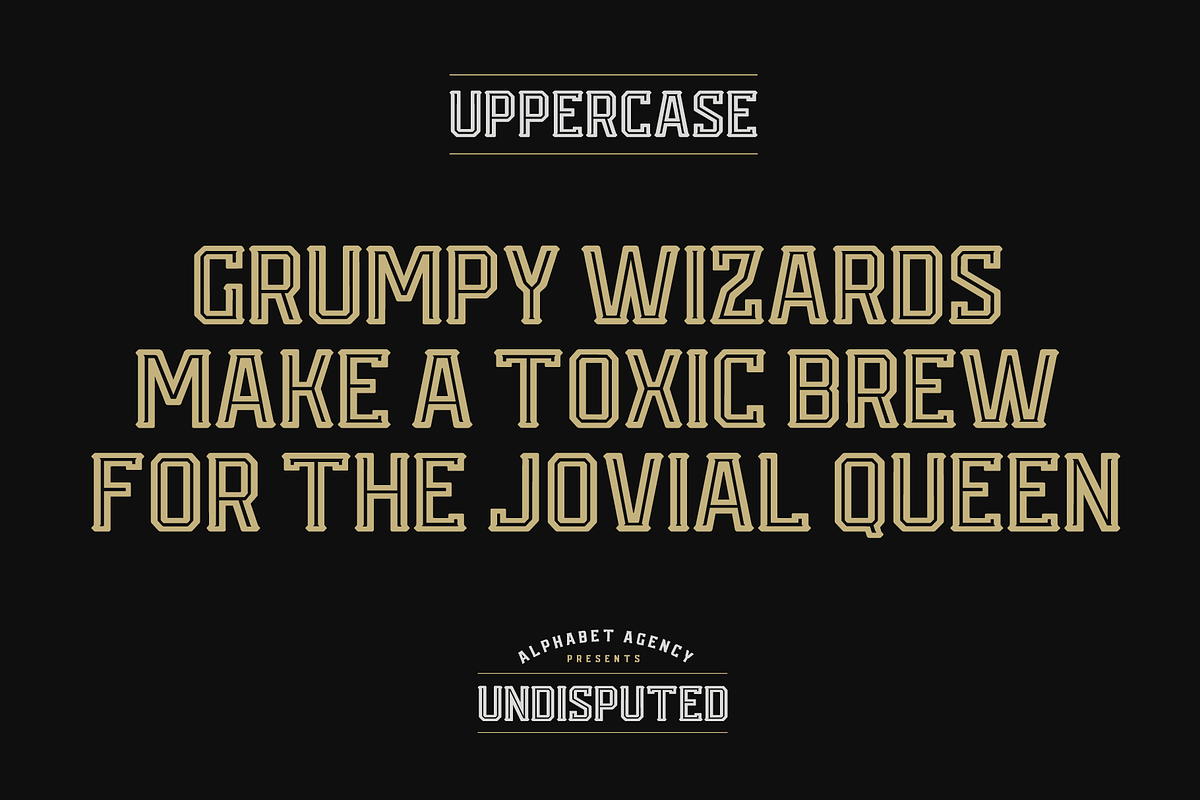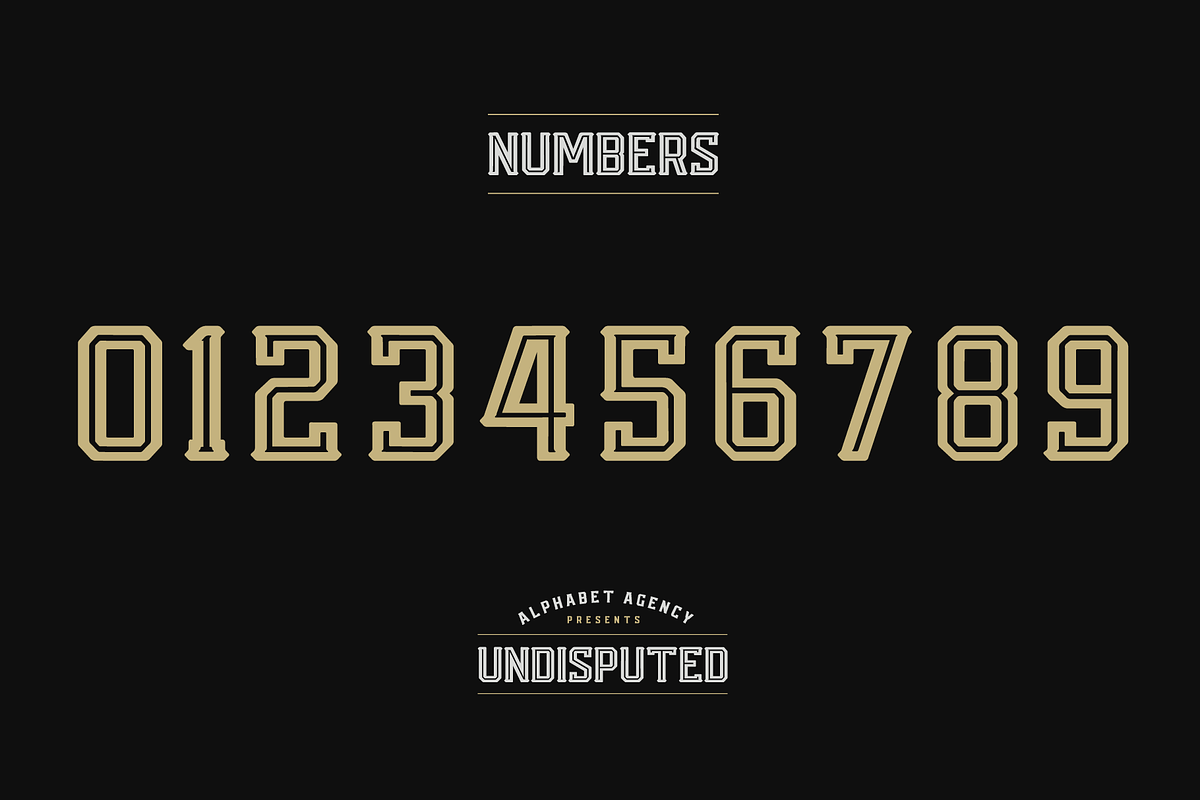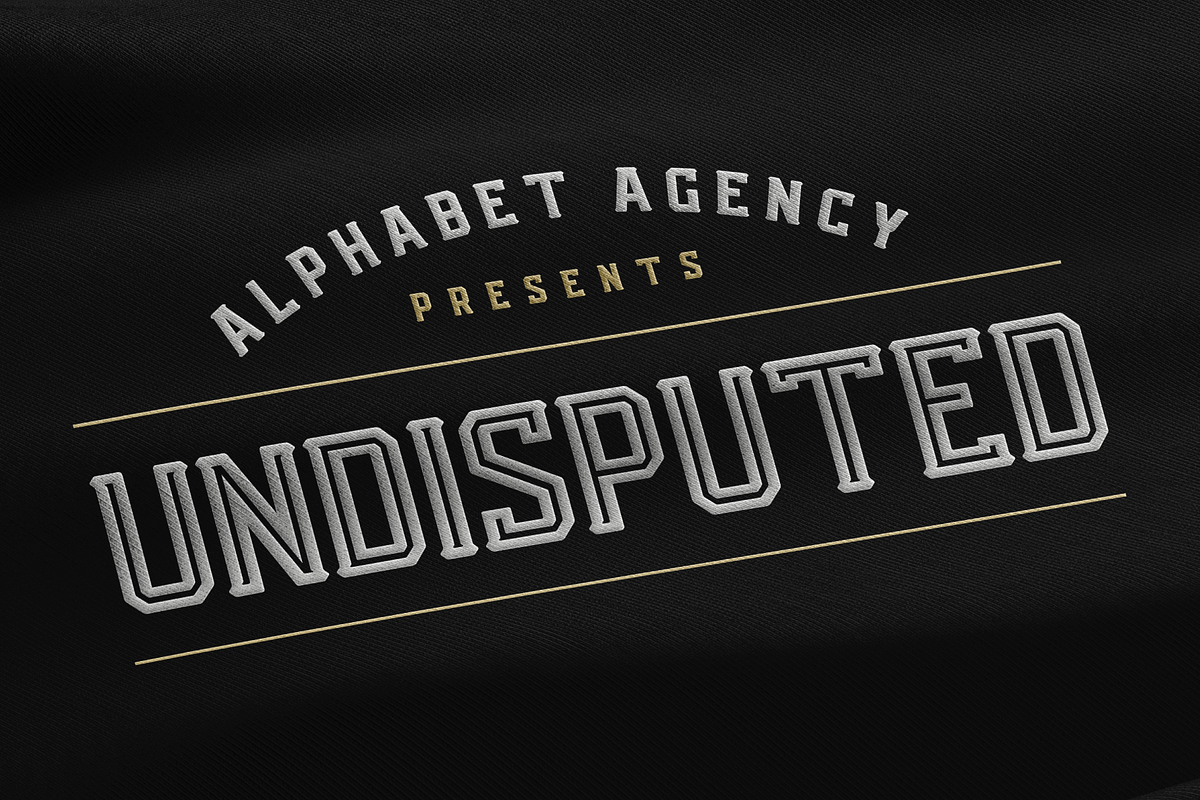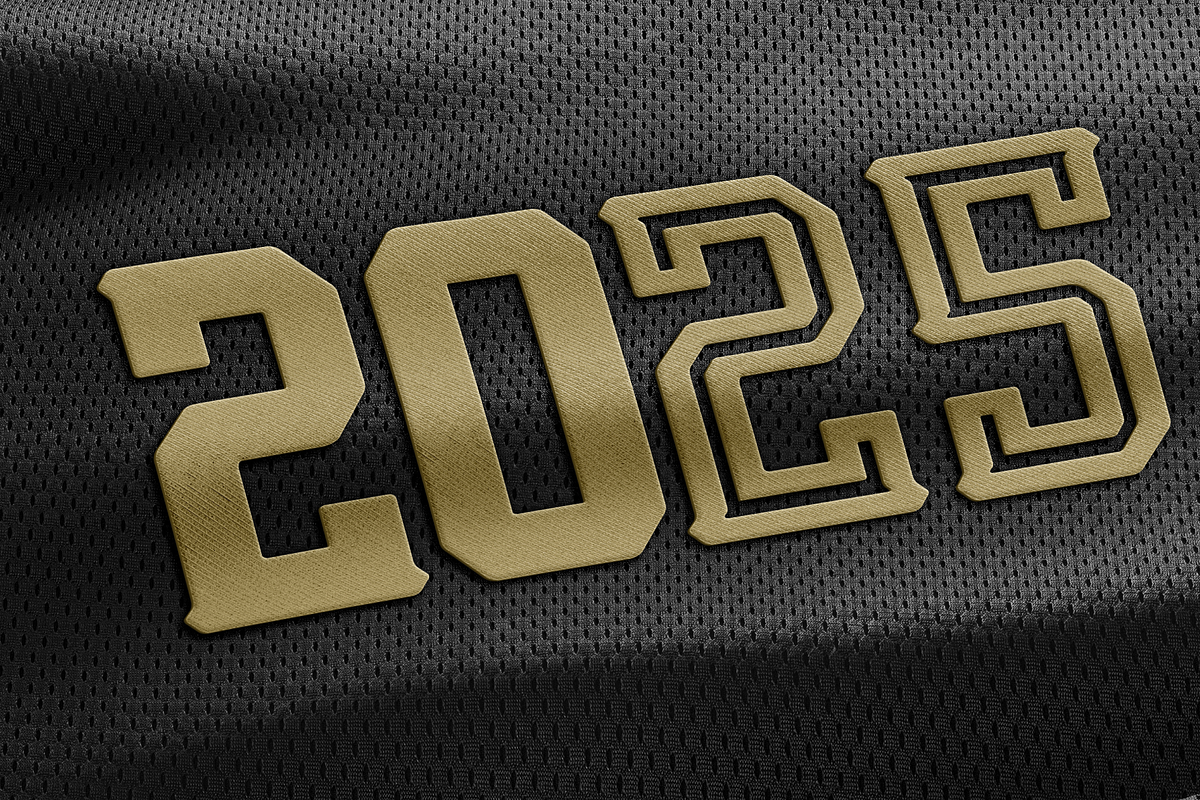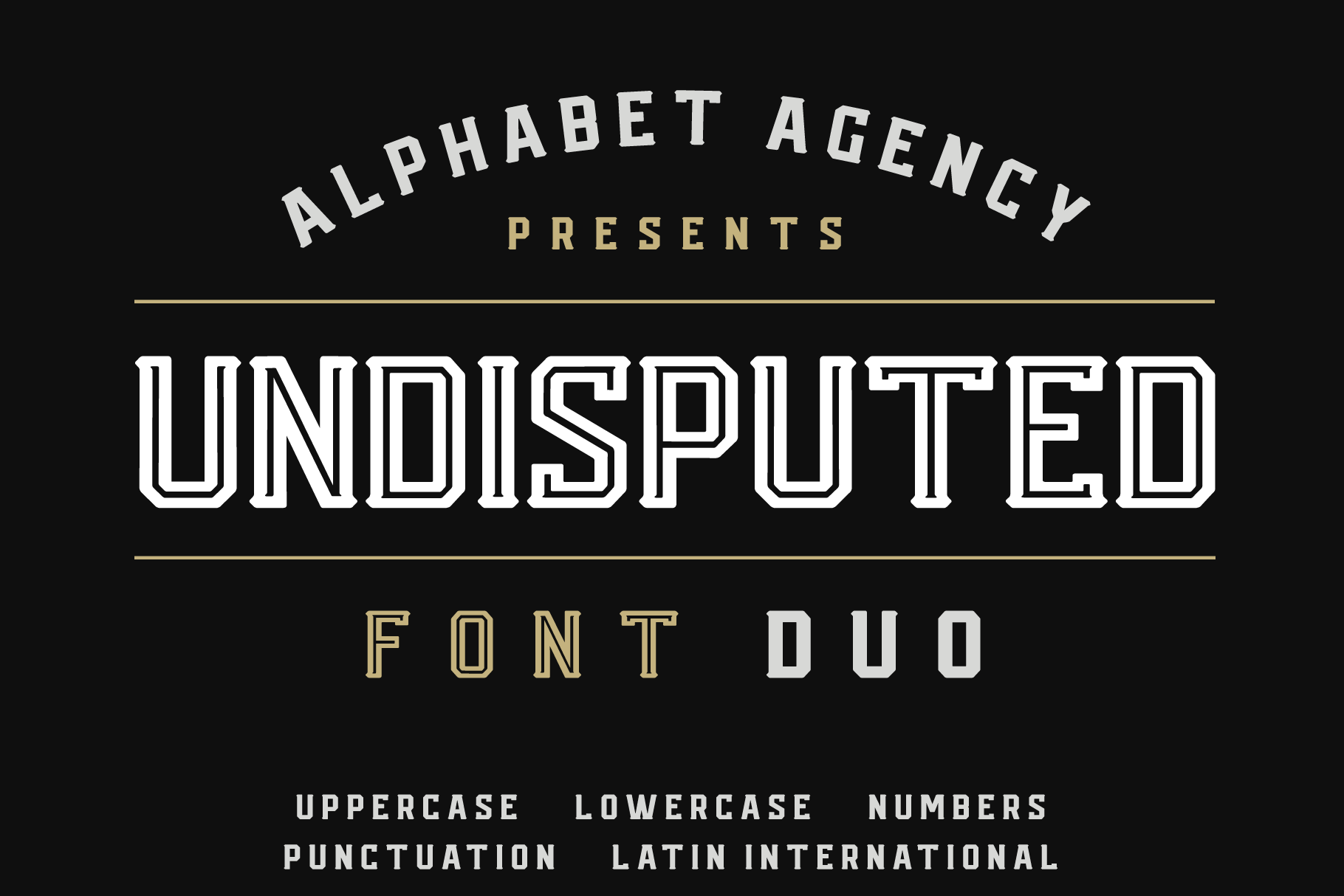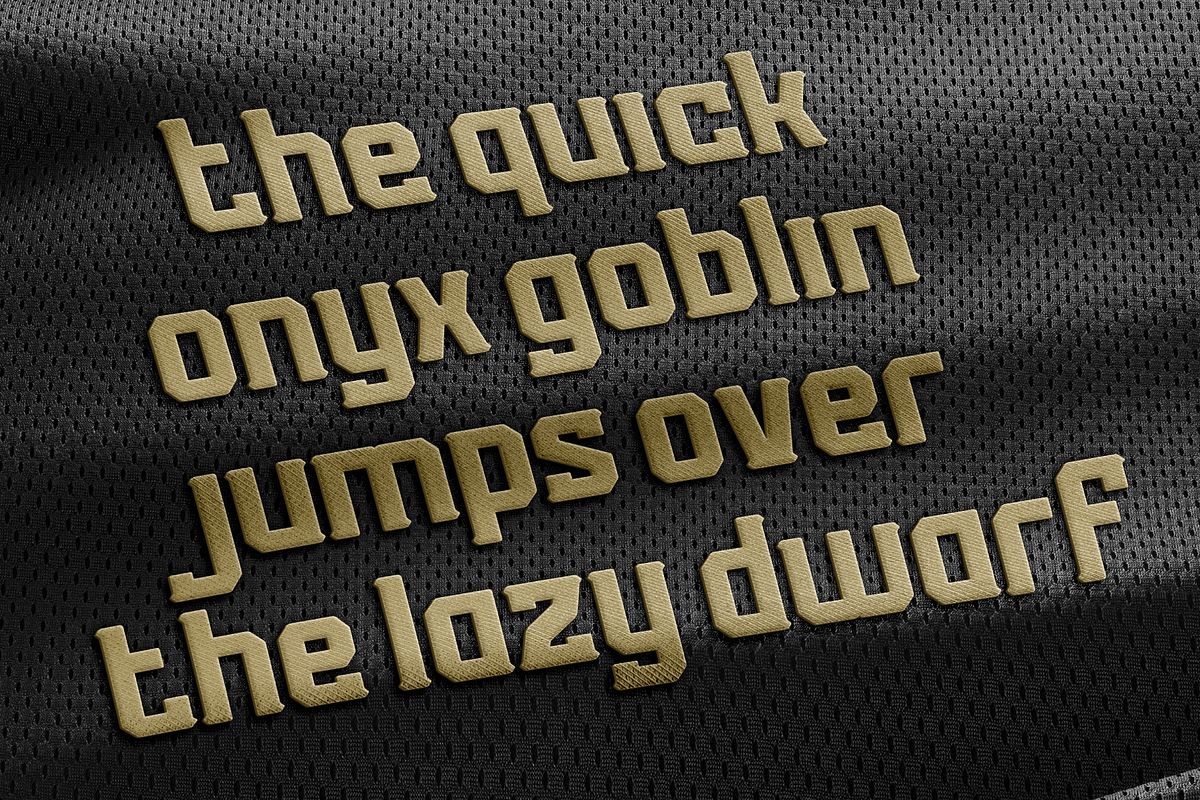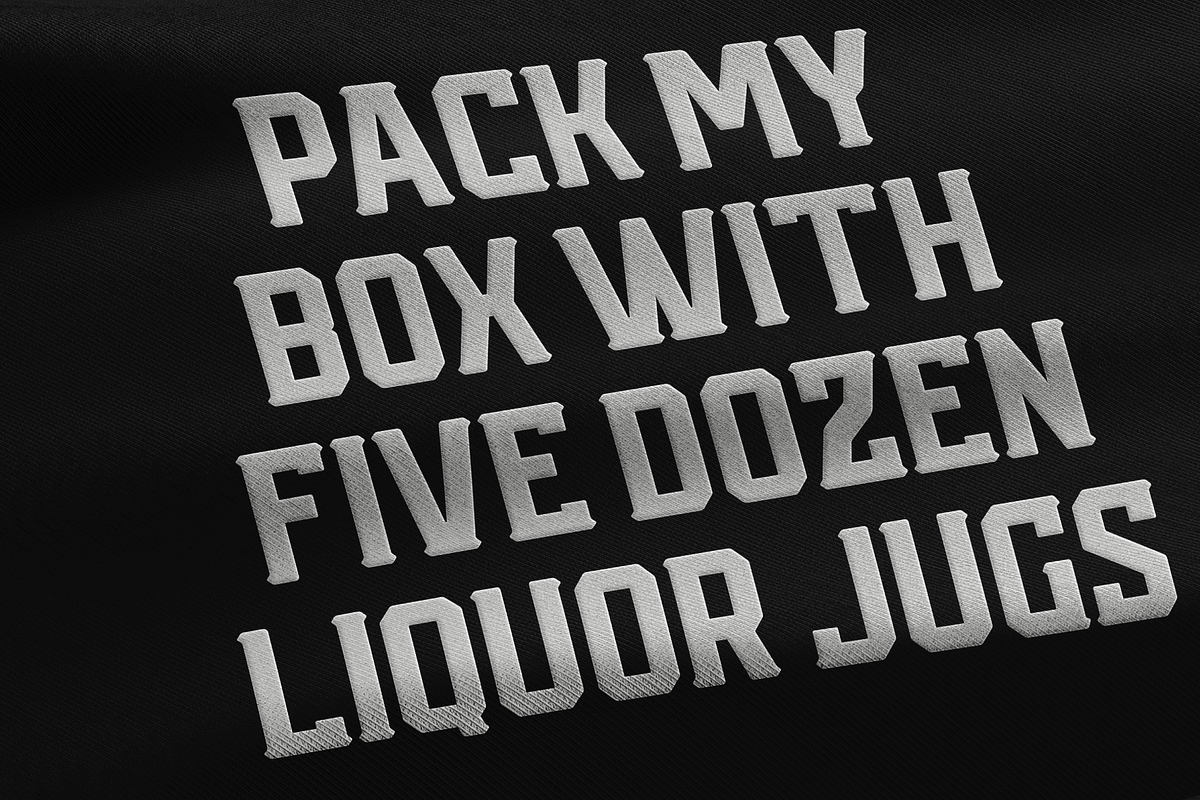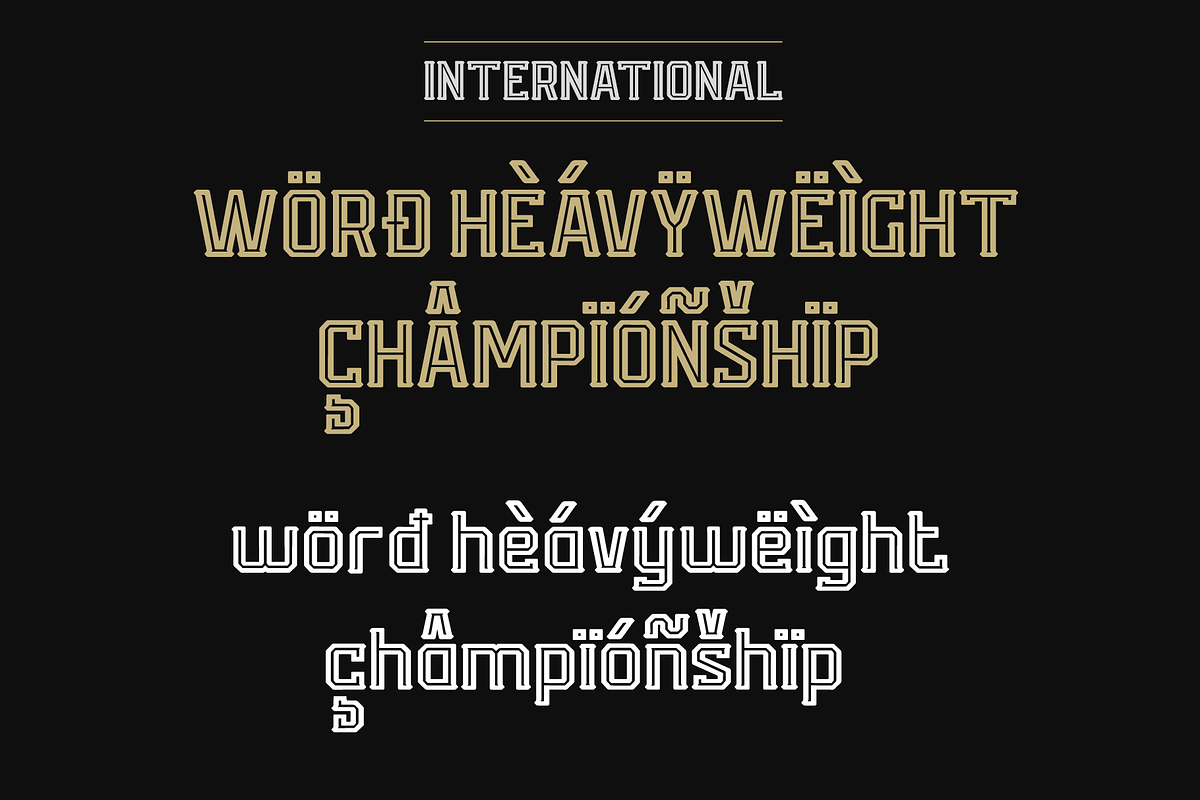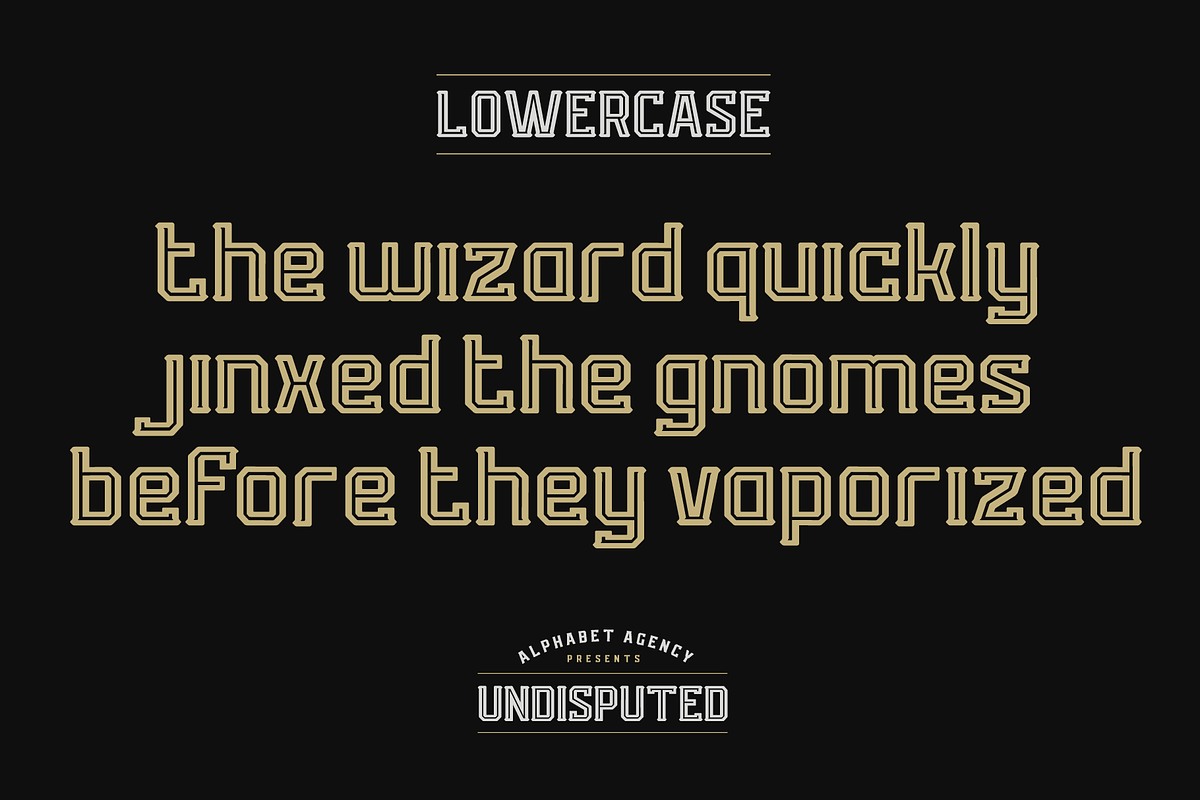
UNDISPUTED FONT DUO
Alphabet Agency presents Undisputed Font Duo display fonts. In our continued effort to supply top quality looking fonts we developed this luxury duo comprised of a inline serif font and serif font.
Each font contains capital uppercase, lowercase, numbers punctuation and Latin international characters.